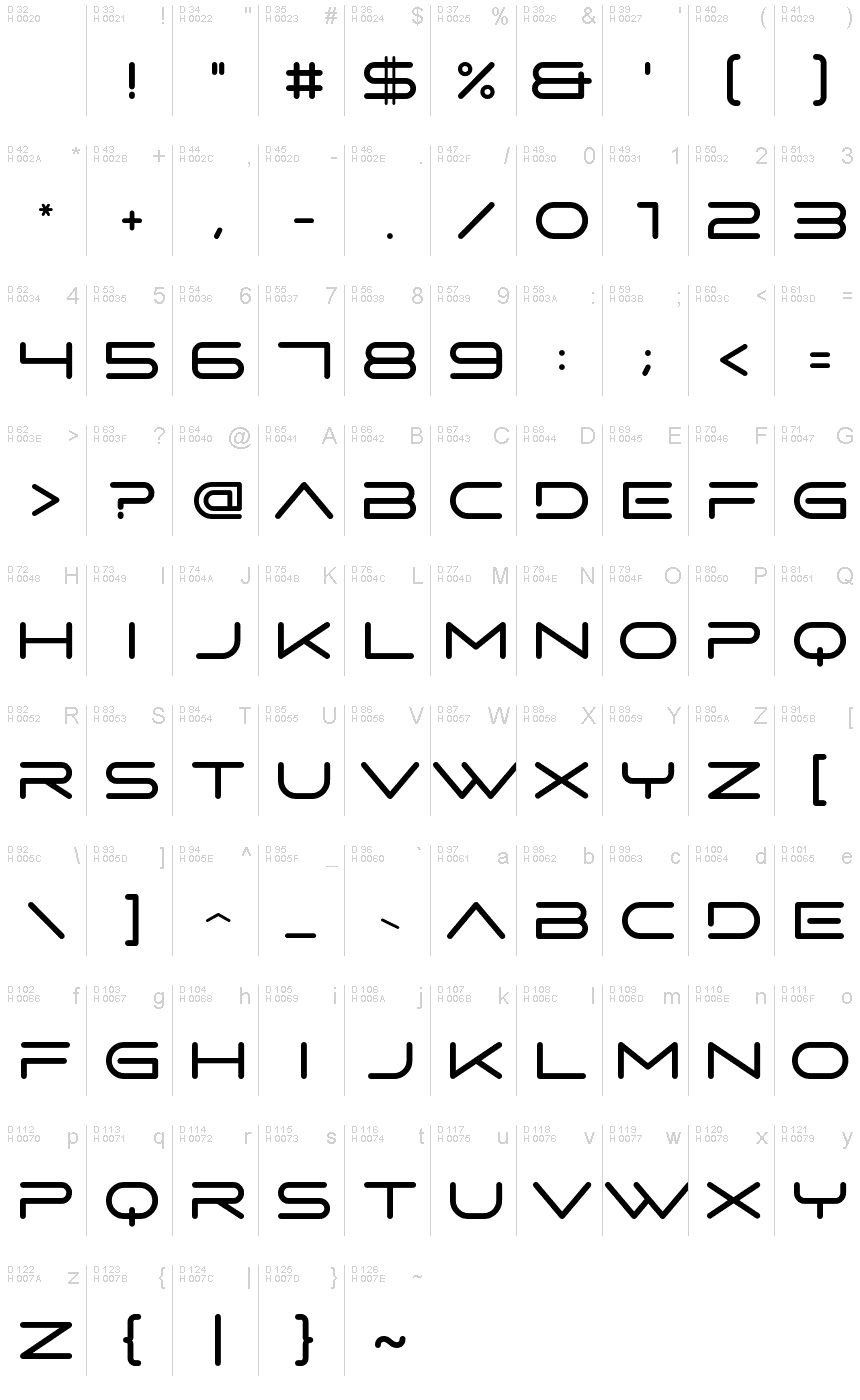
SPHERE FEZ
Introducing SPHERE FEZ, a futuristic display font designed by the talented Andika Fez. This typeface features extra-wide letterforms and a light weight that lend it an otherworldly feel, making it perfect for projects that require a touch of the avant-garde. From high-tech product packaging to science fiction book covers, SPHERE FEZ adds a sleek and space-age vibe to any design. So if you're looking for a font that's out of this world, look no further than SPHERE FEZ!